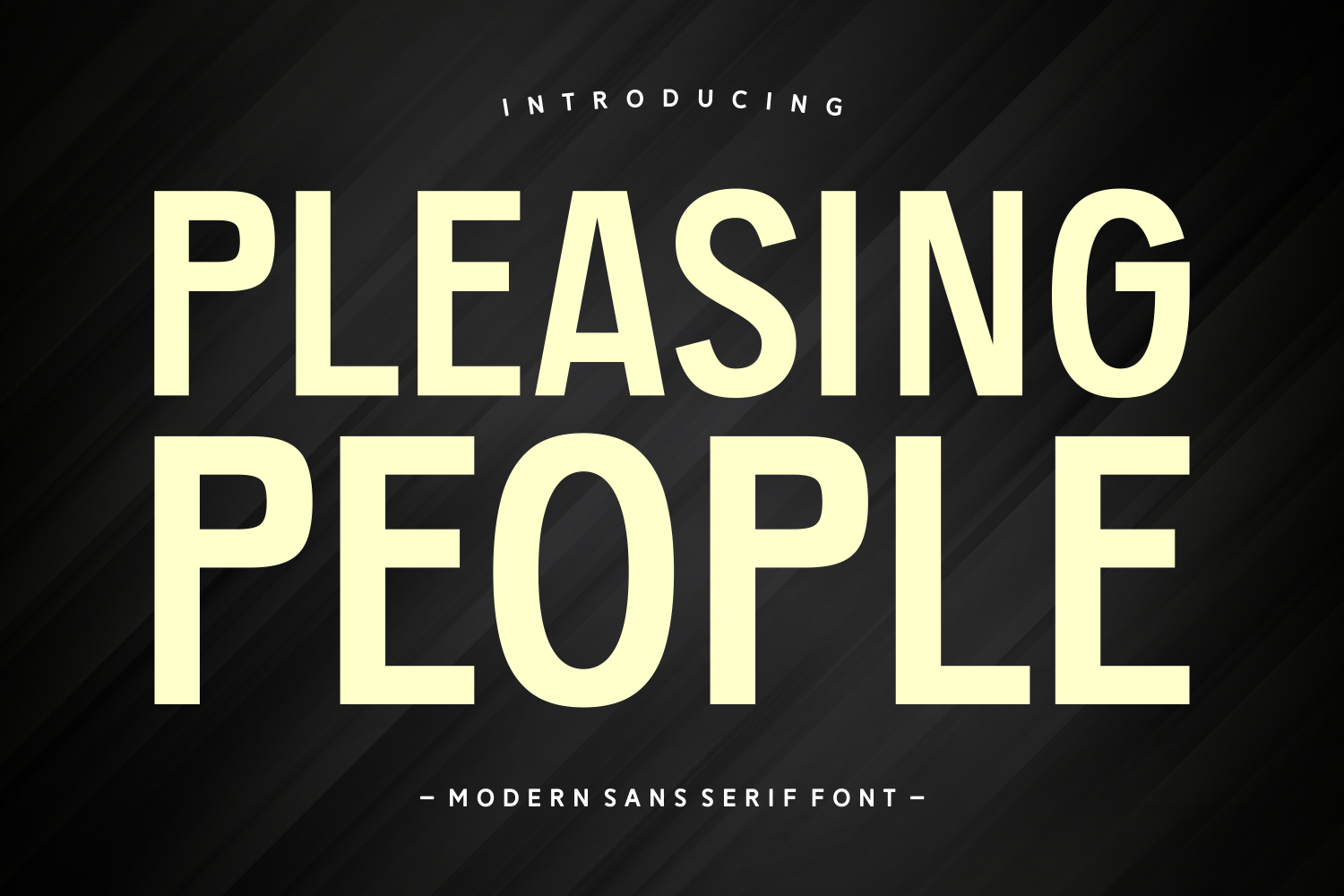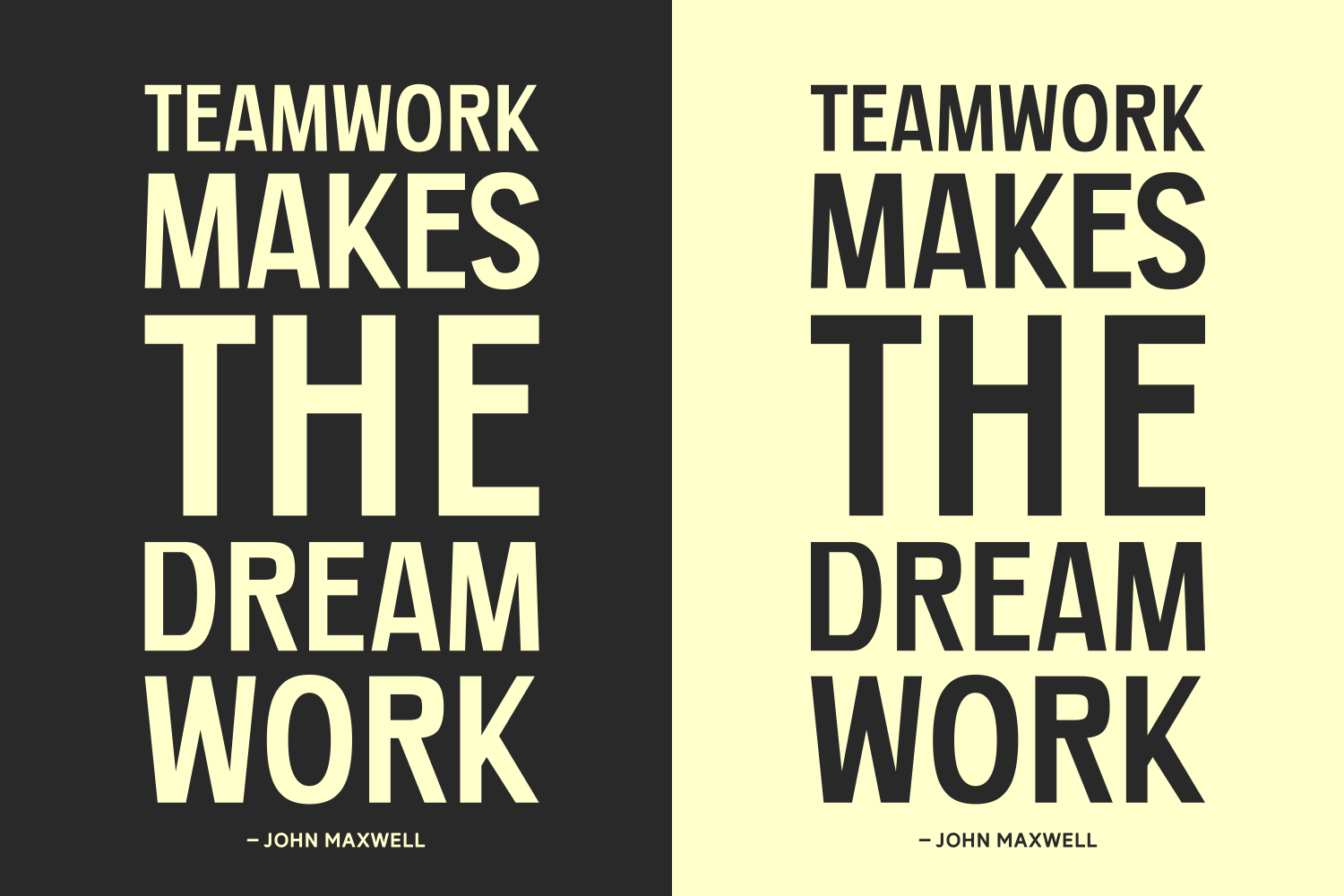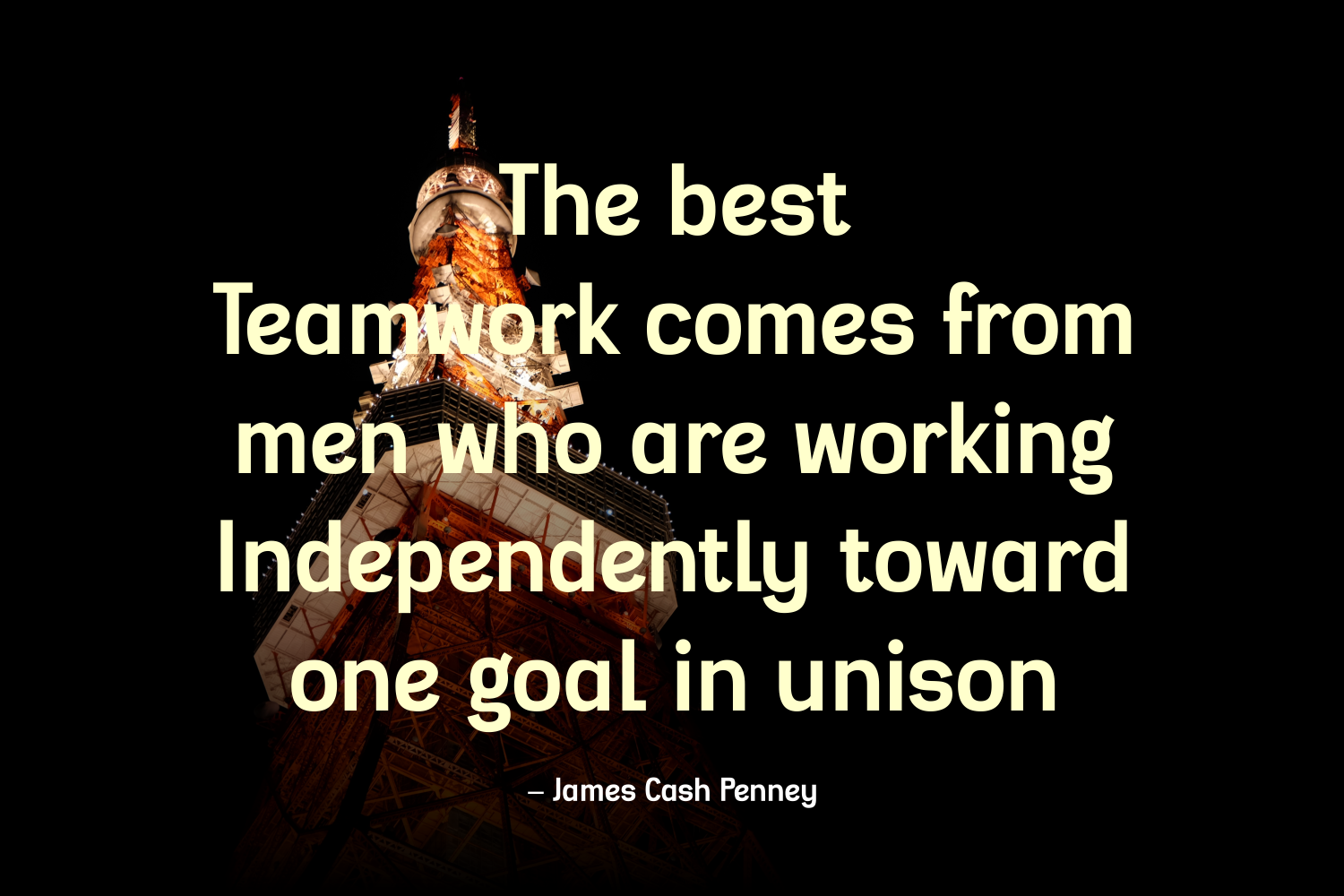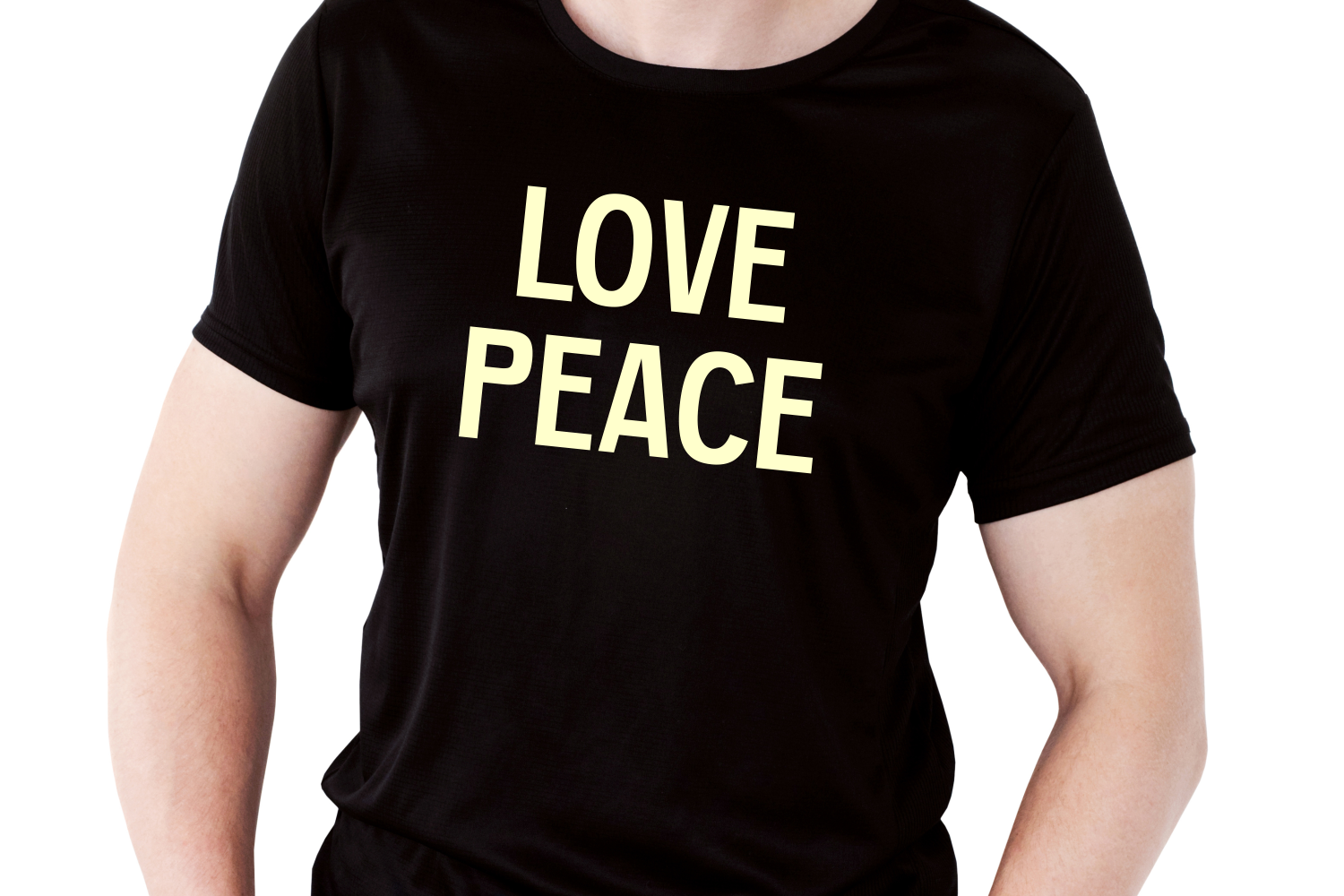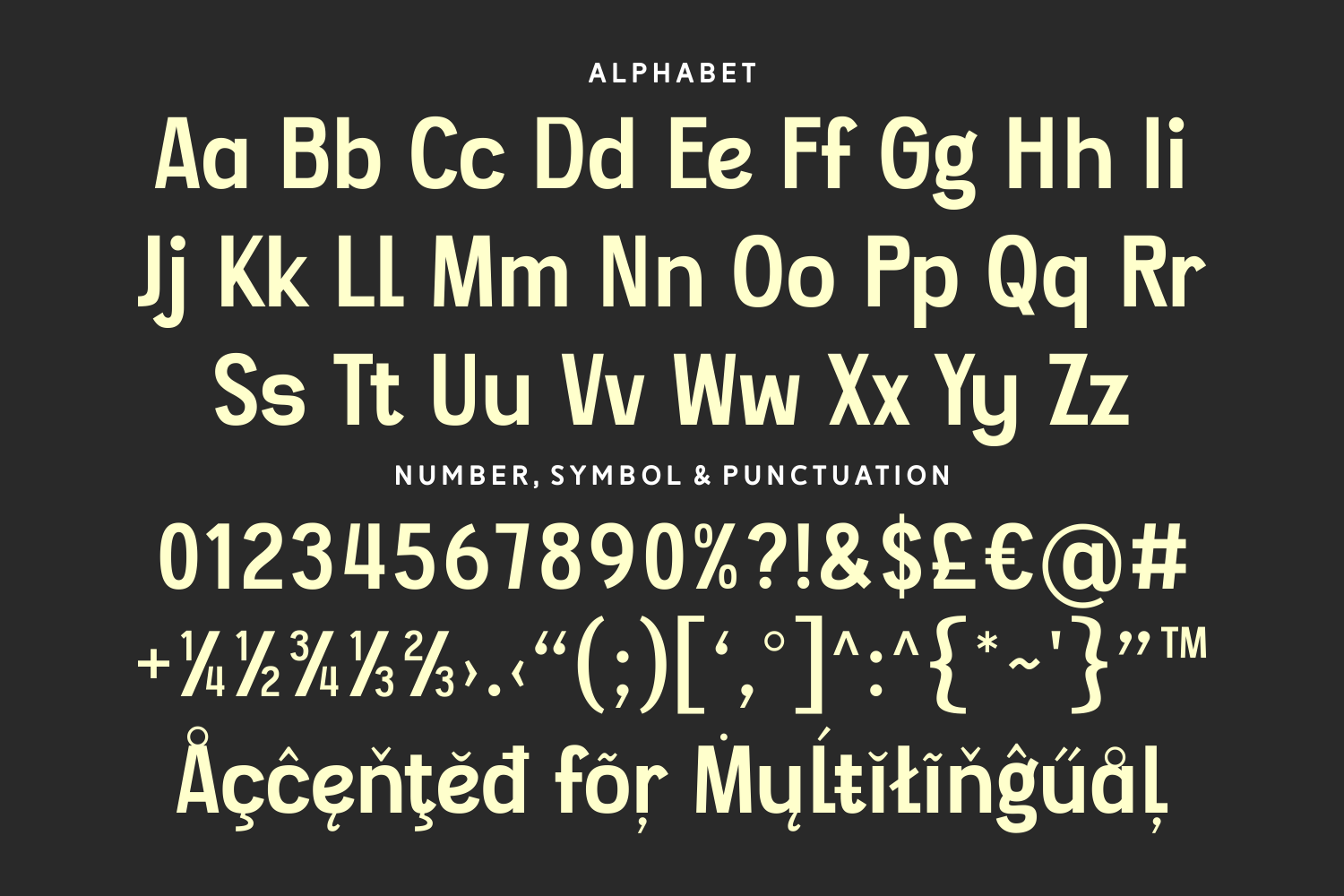
Pleasing People
Pleasing People is a bold, high-contrast sans-serif font made for making statements. With its tall uppercase forms and confident weight, it’s perfect for posters, branding, and titles that demand attention and clarity.